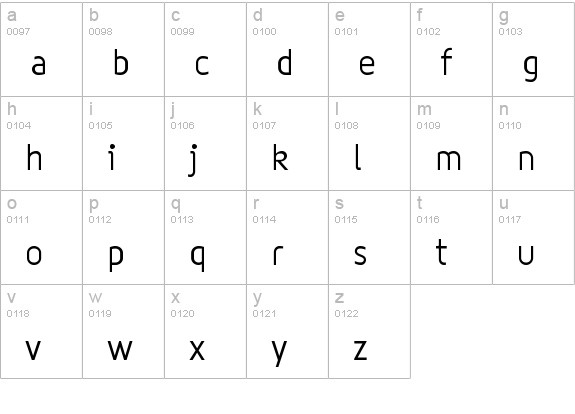
OgilveTwoThin is a sleek and elegant typeface that exudes modern sophistication. With its slender and refined letterforms, this font is perfect for creating a sense of minimalism and chicness in your designs. The thin strokes and clean lines of OgilveTwoThin make it ideal for use in various design projects, from branding to editorial layouts. What sets OgilveTwoThin apart is not just its stylish appearance, but also the fact that it is available for free download at FontsMarket.com. This means that you can easily access and use this stunning font without any cost, making it a valuable addition to your font library. Whether you're working on a website, poster, or packaging design, OgilveTwoThin will bring a touch of sophistication and modernity to your projects. Unlock the potential of this versatile typeface and elevate your designs with OgilveTwoThin.